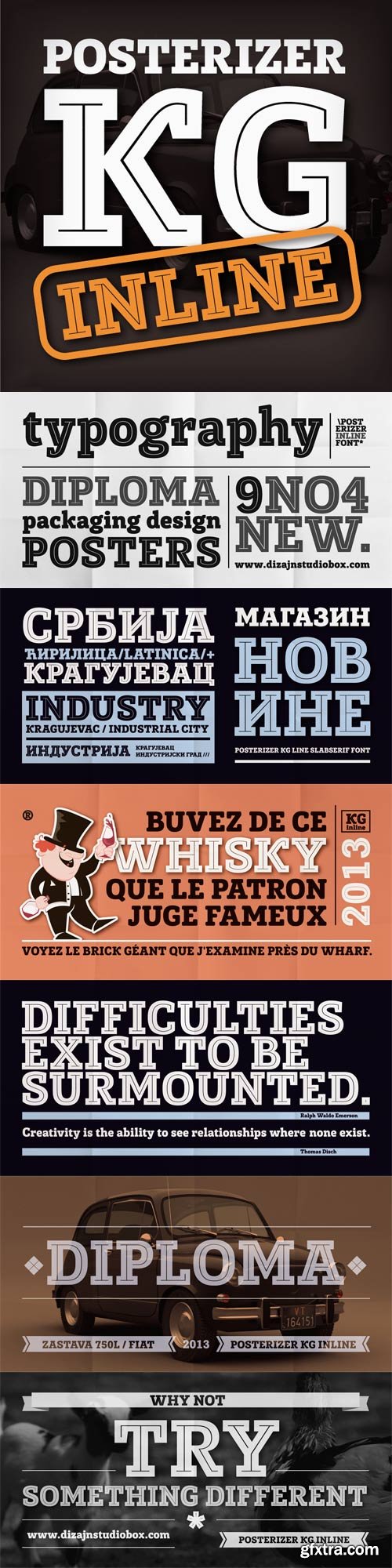
Posterizer Kg Inline, is basically the Inline version of
Egyptian Slab Serif font Posterizer KG. Posterizer KG Inline is useful for diplomas,
magazines, headlines and many other things.